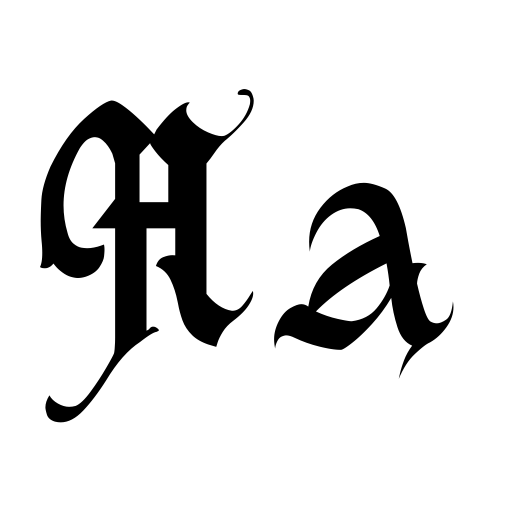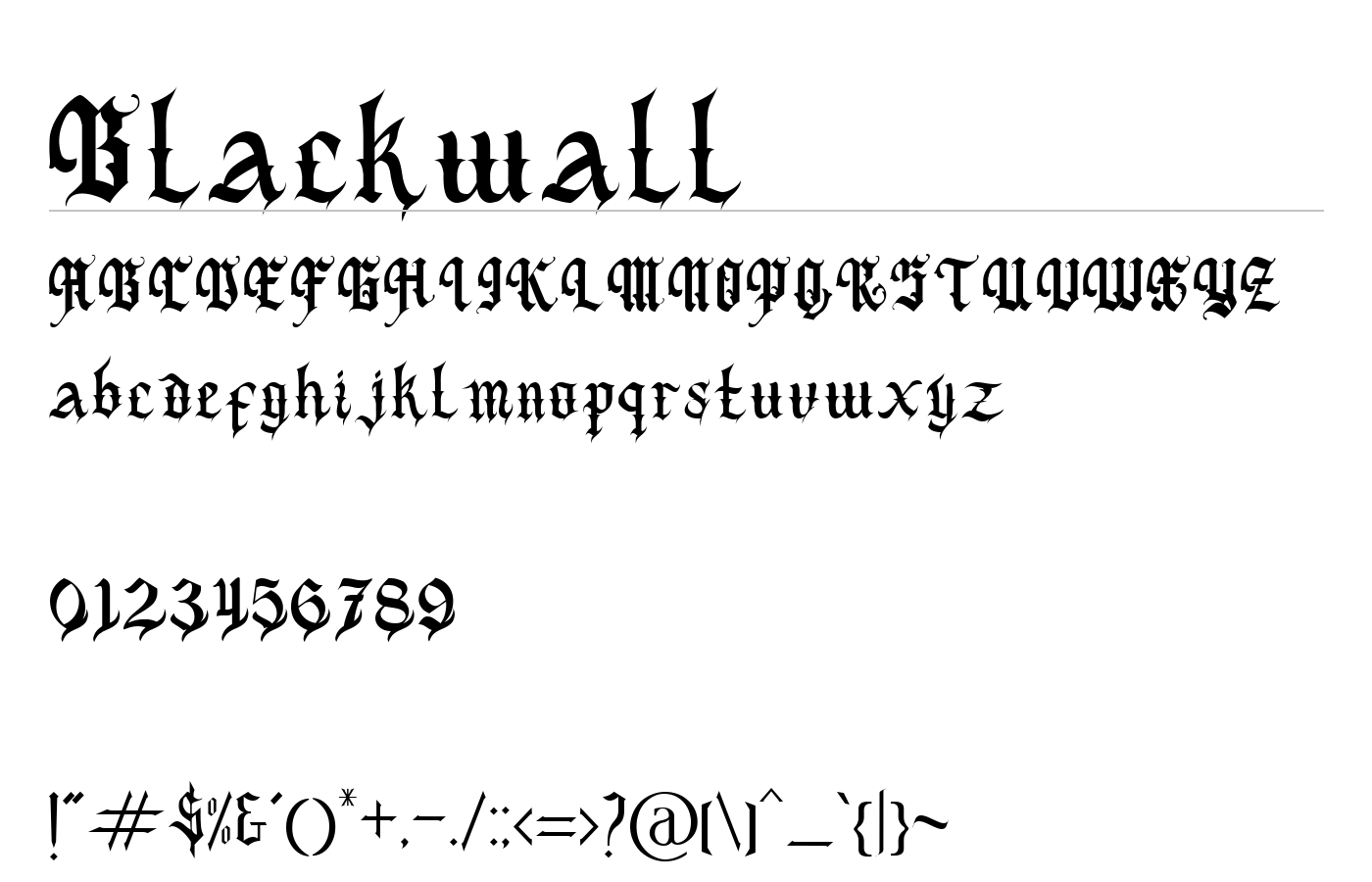
Blackwall is a striking blackletter typeface that features bold, dramatic strokes and sharp, angular details reminiscent of traditional Gothic calligraphy. Its dense and ornate letterforms create a strong medieval vibe, making it ideal for vintage-style branding, logos, posters, or any design that seeks to convey an old-world, elegant, and authoritative mood. This font works best in headline or display use where its intricate style can be appreciated without sacrificing readability.
Blackwall Font
About Blackwall Font